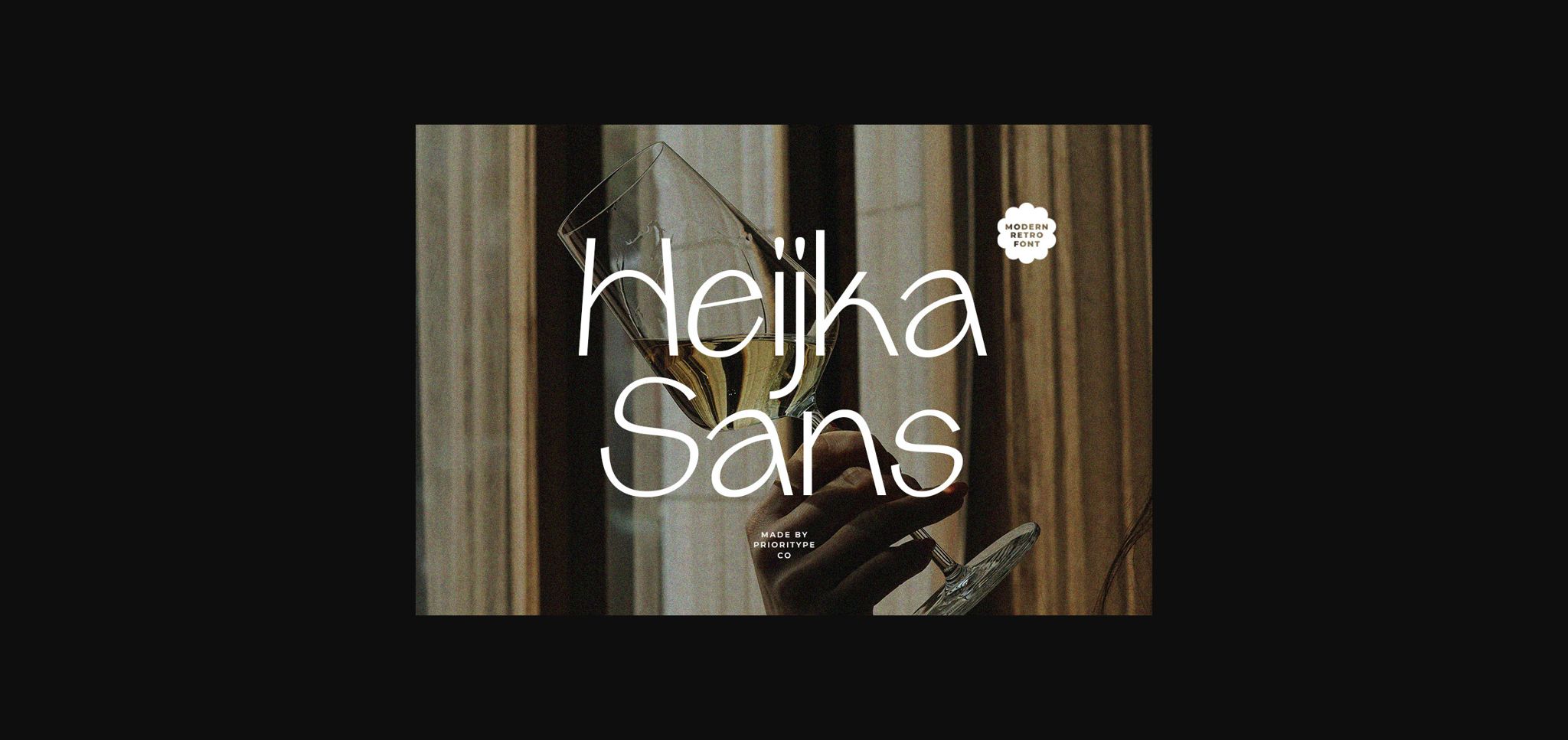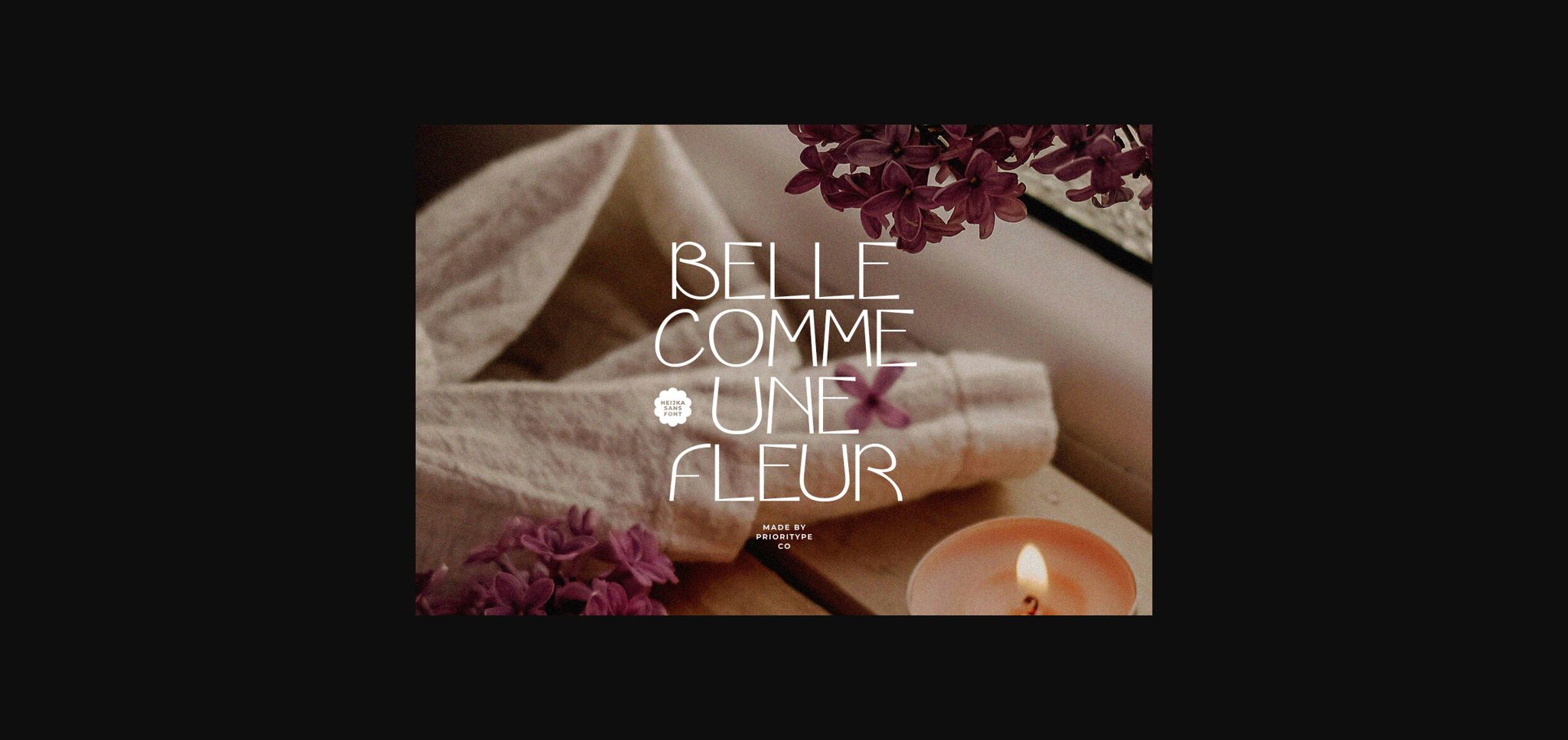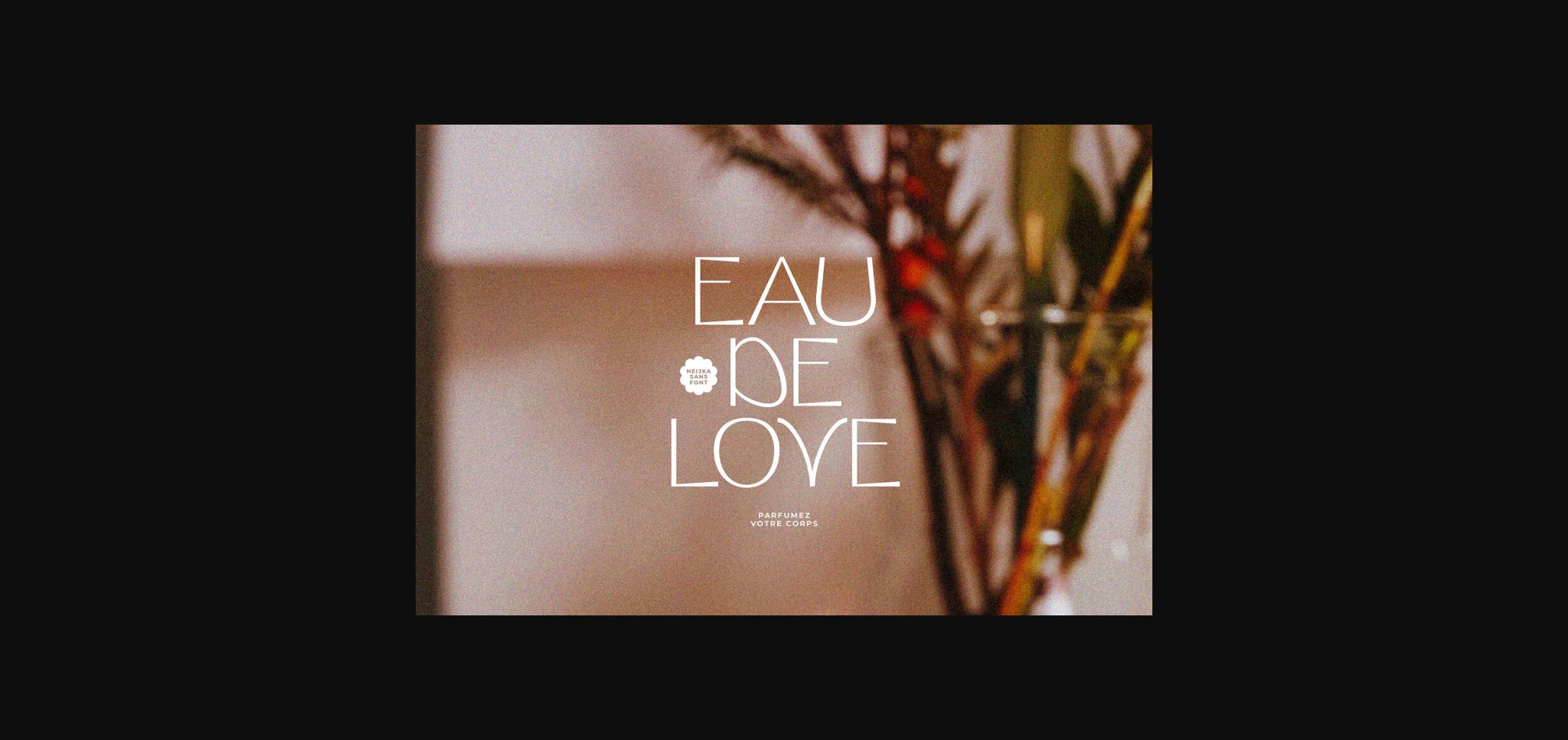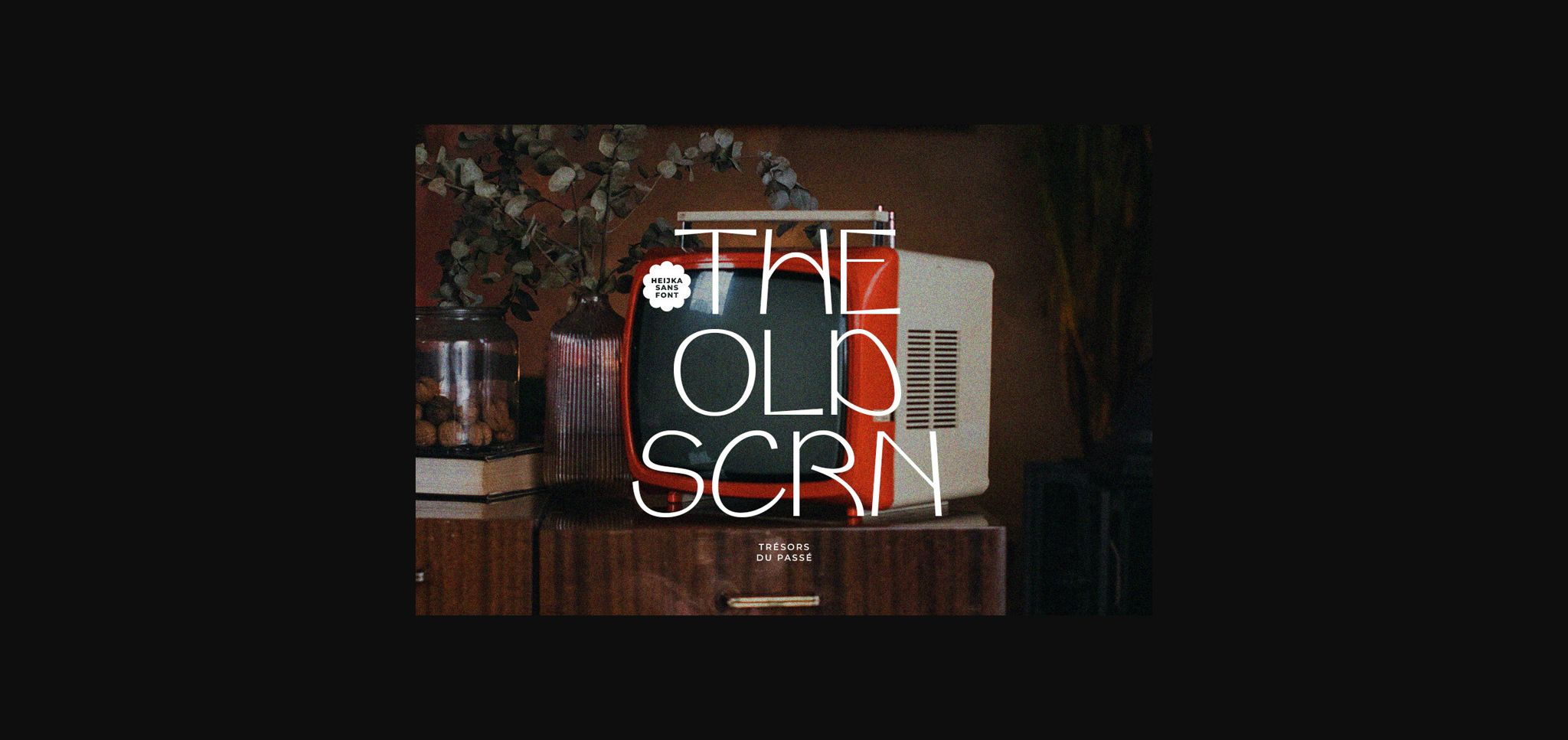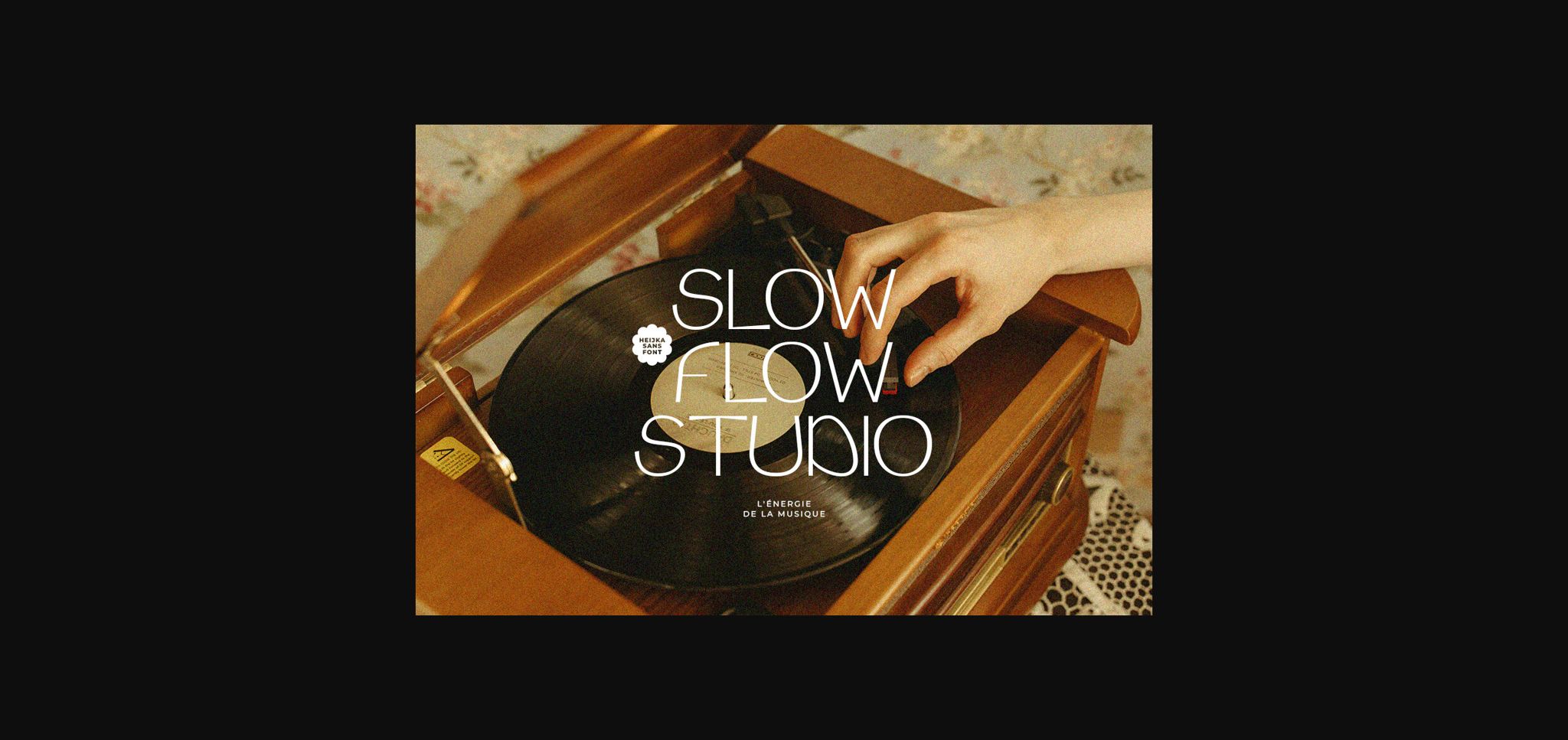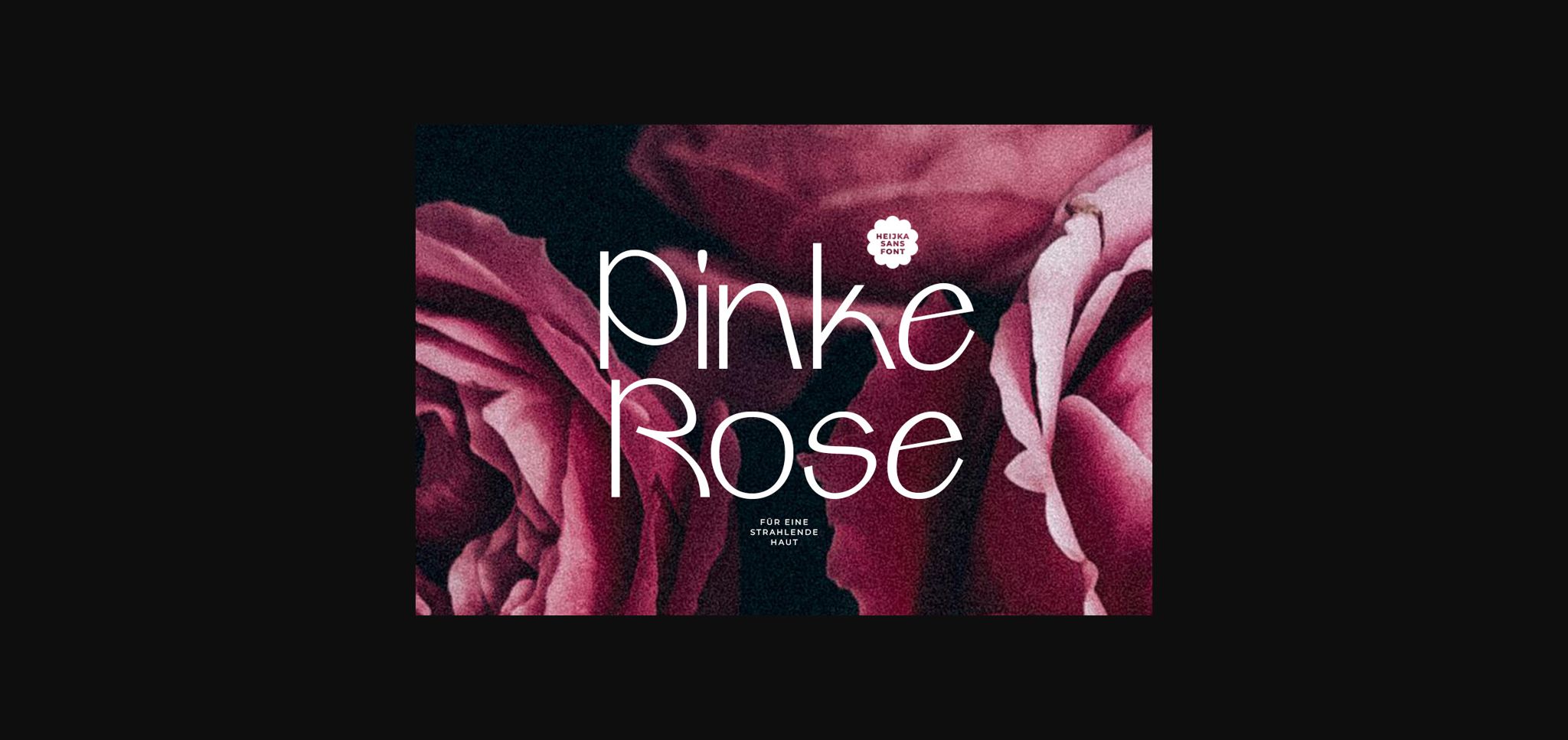
About Heijka Sans Font
Heijka Sans is an elegant and bold serif font. Fall in love with its incredibly versatile style and use it to create gorgeous wedding invitations, beautiful stationary art, eye-catching social media posts, and much more!